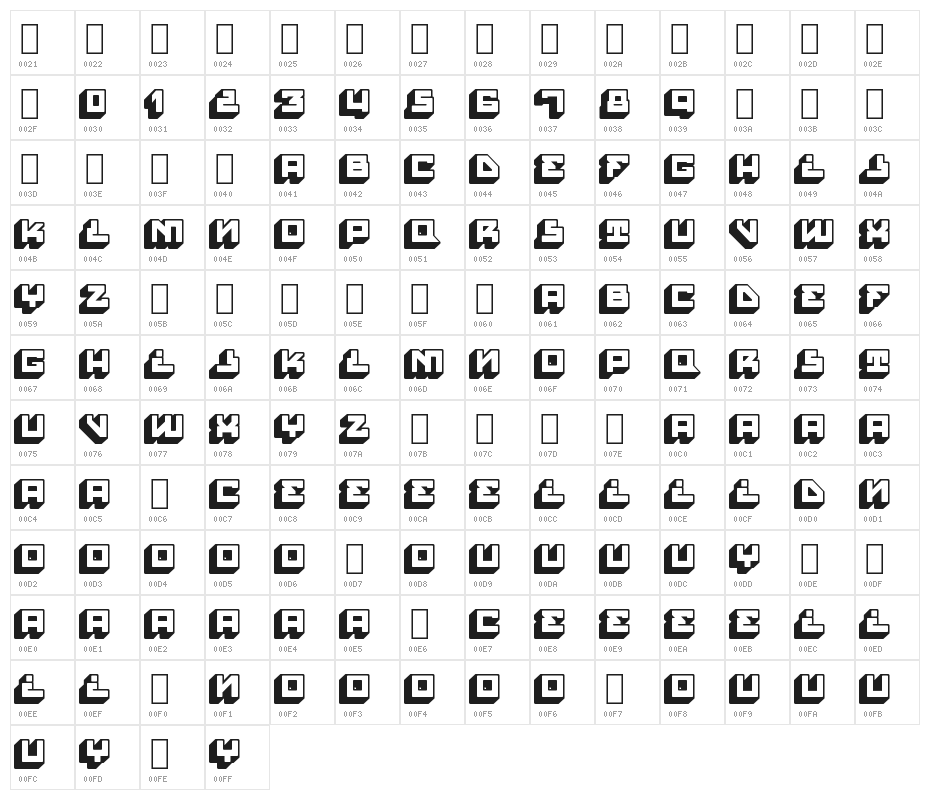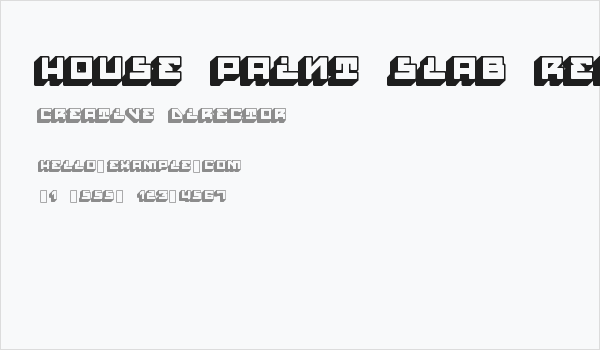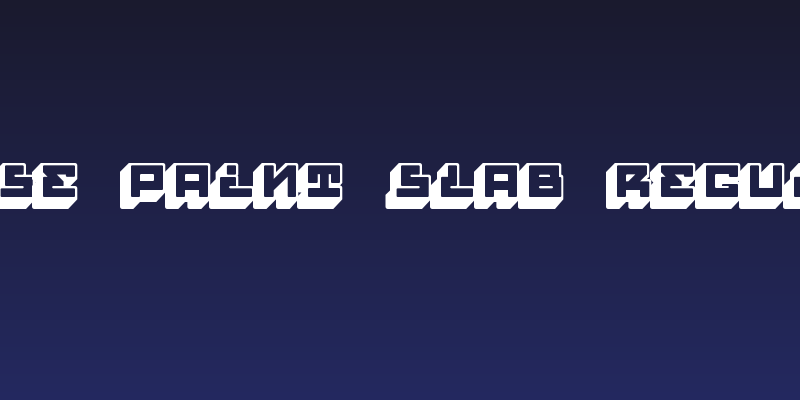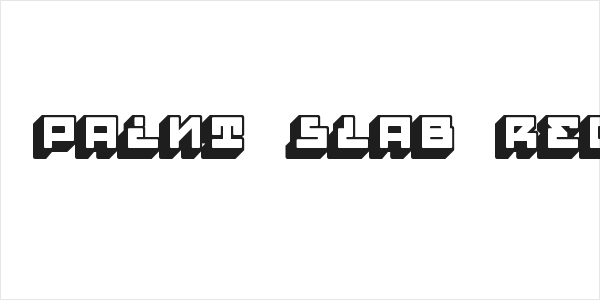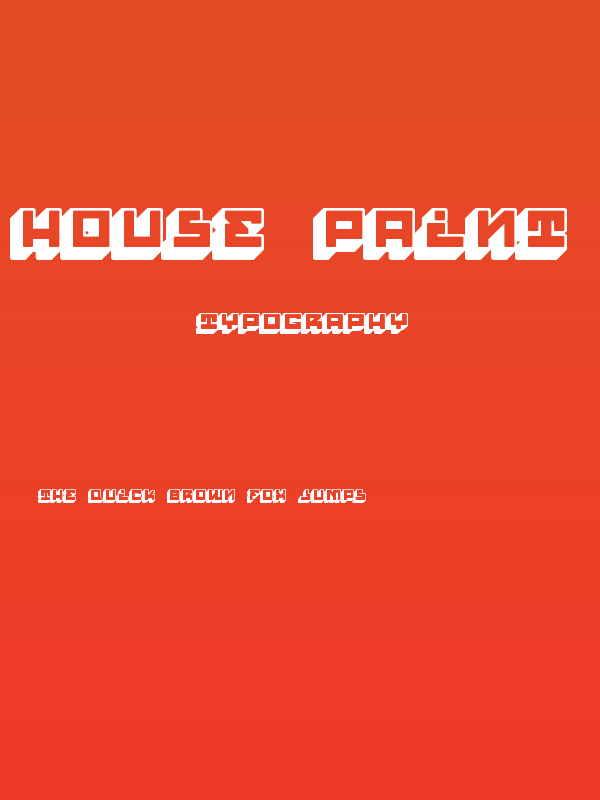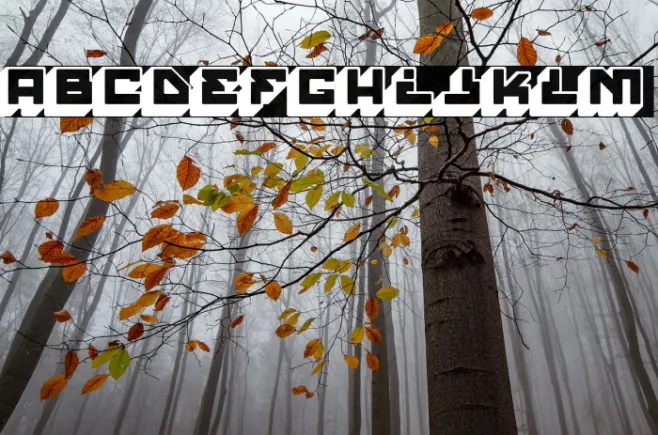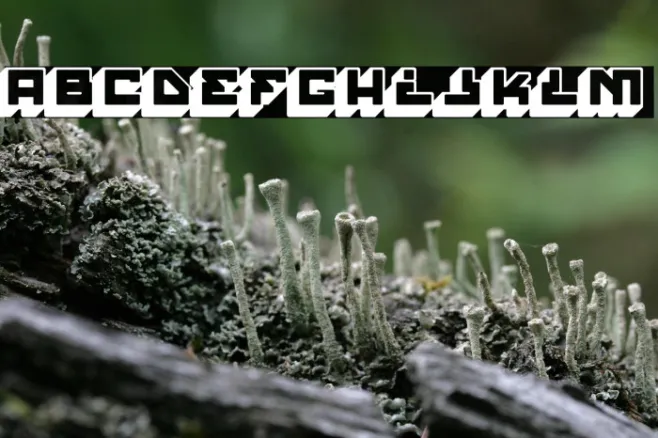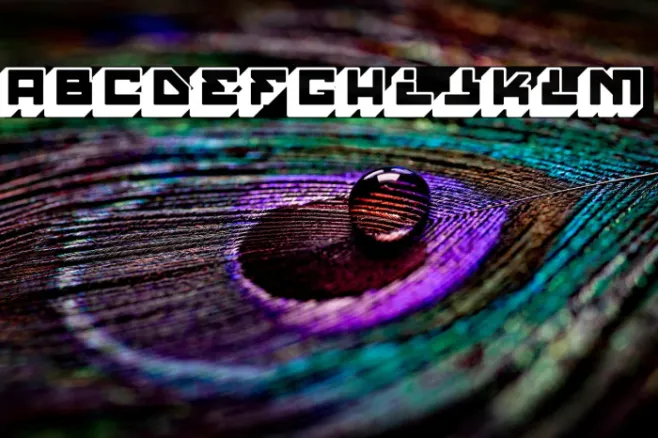
House Paint Slab Regular Font
House Paint Slab Regular Description
This font features a bold, three-dimensional slab serif style with a strong, impactful presence. The characters are designed with a shadow effect, giving them a distinct, layered appearance that adds depth and dimension. The uppercase and lowercase letters maintain a consistent geometric structure, while the numbers and special characters follow the same bold aesthetic. The font's unique style makes it suitable for eye-catching designs where a strong visual impact is desired.
| Proposed Projects | Ideal for posters, headlines, logos, and any design requiring a bold, attention-grabbing font. |